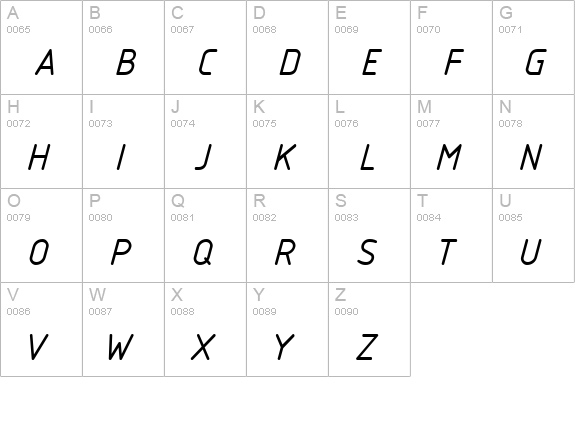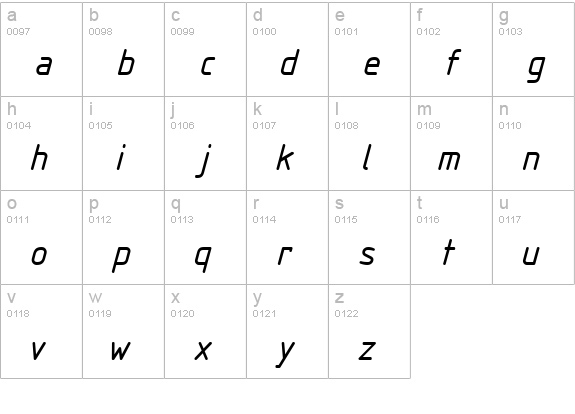
ISOCTEUR Italic Font Details
ISOCTEUR Italic is a distinctive, italic variant in the ISOCTEUR typeface family \xE2\x80\x94 well suited to design and typography projects.
Introducing ISOCTEUR Italic font, a stunning typeface that effortlessly combines elegance and modernity. With its sleek and sophisticated design, this font is perfect for adding a touch of class to any project. The ISOCTEUR Italic font features beautifully slanted letterforms that add a sense of movement and flair to your text. Its unique italicized style captures attention and creates a visually captivating experience for readers. Whether you're designing a logo, creating a website, or crafting a stylish invitation, ISOCTEUR Italic font is sure to elevate your design to new heights. One of the greatest advantages of ISOCTEUR Italic font is that it is free and easily accessible. You can now freely download this exquisite font from FontsMarket.com, the leading platform for high-quality and diverse font collections. Its availability ensures that designers and creatives of all backgrounds can access this exceptional font without any limitations. ISOCTEUR Italic font's versatility is another remarkable aspect. It seamlessly adapts to various design contexts, making it suitable for both digital and print projects. Its legibility remains uncompromised, even at smaller sizes, making it ideal for body text or captions. The elegant curves and balanced letterforms ensure readability and make ISOCTEUR Italic font a reliable choice for any project. With its refined aesthetics and wide range of applications, ISOCTEUR Italic font is a must-have for designers seeking to add a touch of sophistication to their work. Download it for free at FontsMarket.com today and unlock the potential to create stunning and eye-catching designs that will leave a lasting impression.